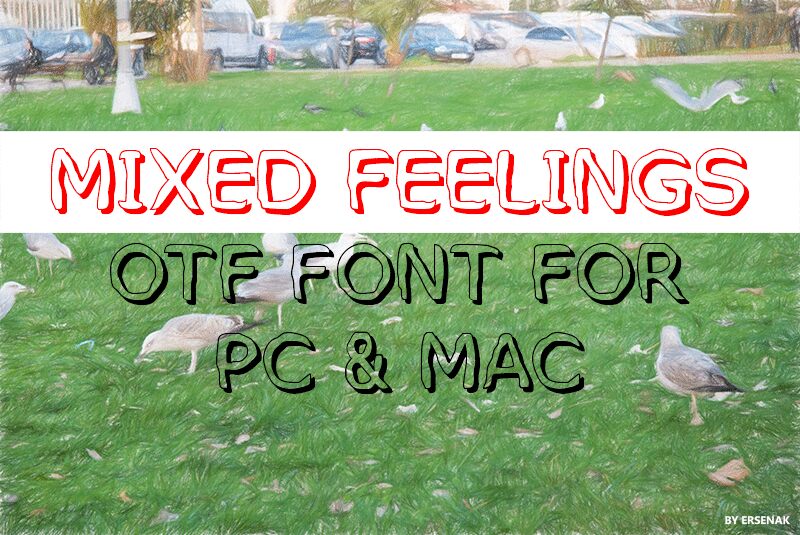
MixedFeelings-Regular
Mixed Feelings, a captivating display font designed by Ersen Akkaya, exudes a playful and whimsical charm. This cartoon-style typeface features bold, organic strokes that evoke a sense of handwritten expression. The uneven line weights and playful letter forms give the font a distinct personality, evoking a range of emotions and evoking a sense of childlike wonder.
The striking contrast between the thick and thin elements, combined with the organic, ink-like texture, creates a visually striking and eye-catching appearance. This font is particularly well-suited for headlines, logos, and branding materials that aim to convey a creative, emotive, and approachable aesthetic.
Versatile in its applications, Mixed Feelings can be utilized in a variety of design contexts, from children's products and educational materials to fashion and lifestyle branding. Its unique character makes it an excellent choice for adding a touch of personality and individuality to any project.
Mixed Feelings is an inky shadowed font in OpenType format for PC and Mac. It has a total of 540 glyphs and supports the following code pages: 1252 Latin 1, 1250 Latin 2: Eastern Europe, 1251 Cyrillic, 1253 Greek, 1254 Turkish, and 1257 Windows Baltic.